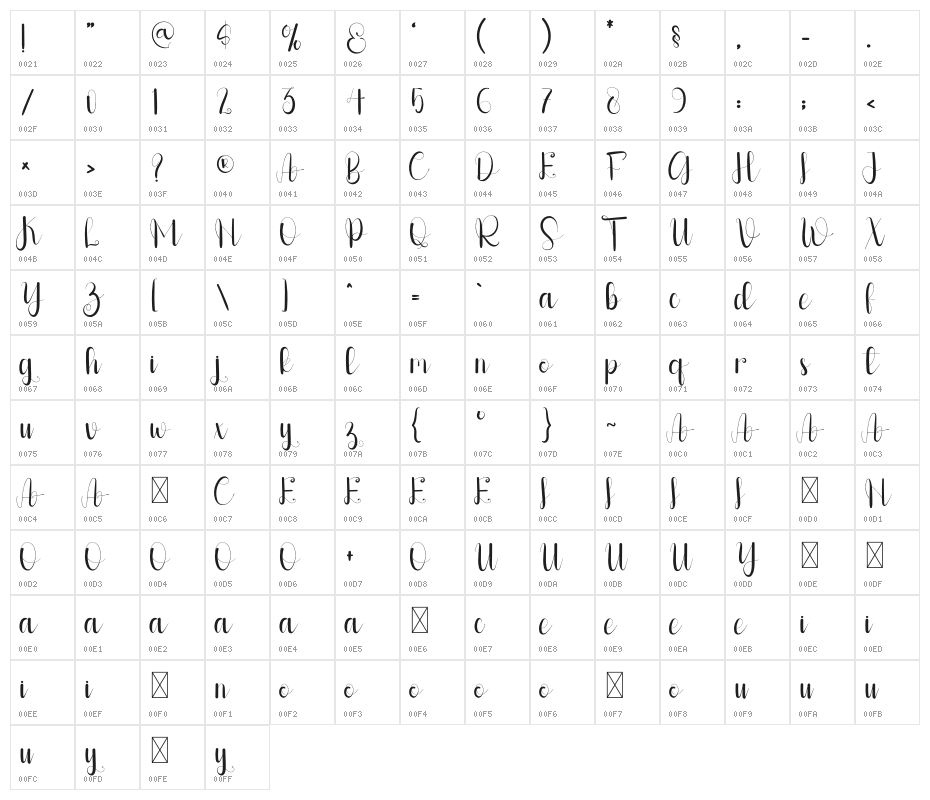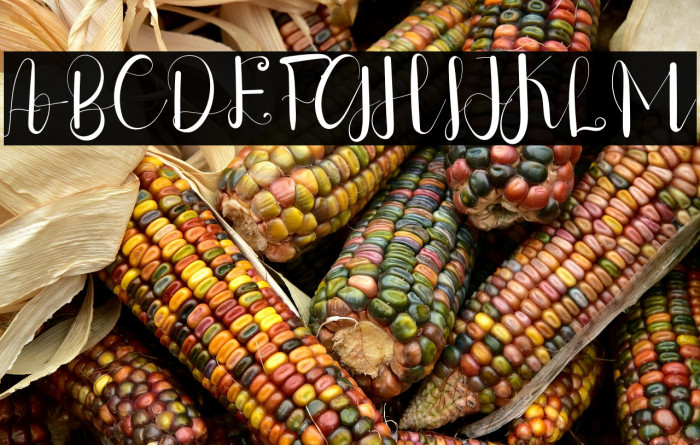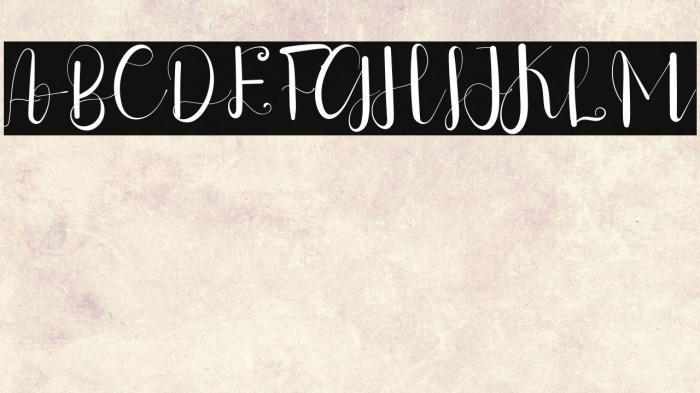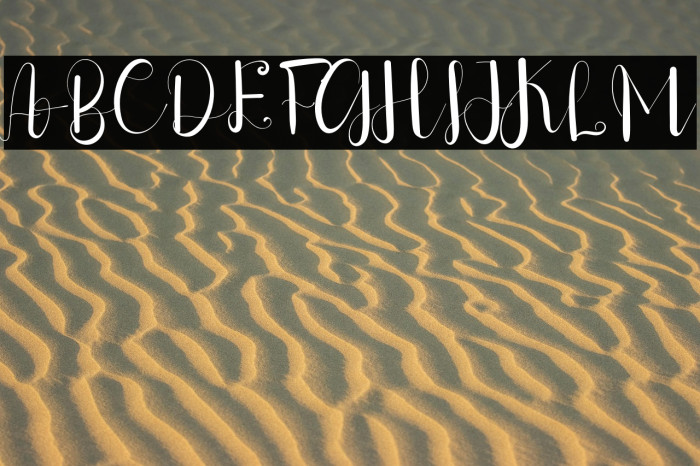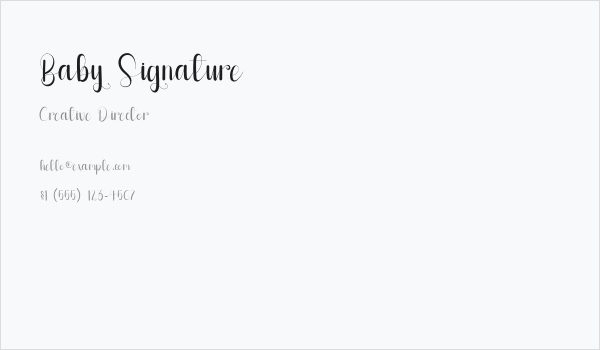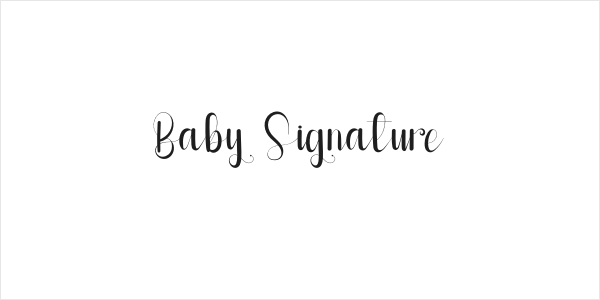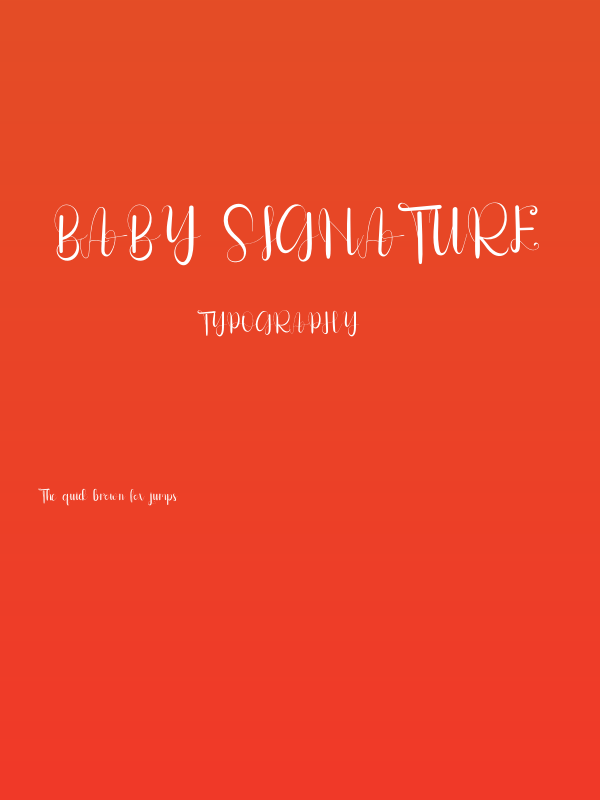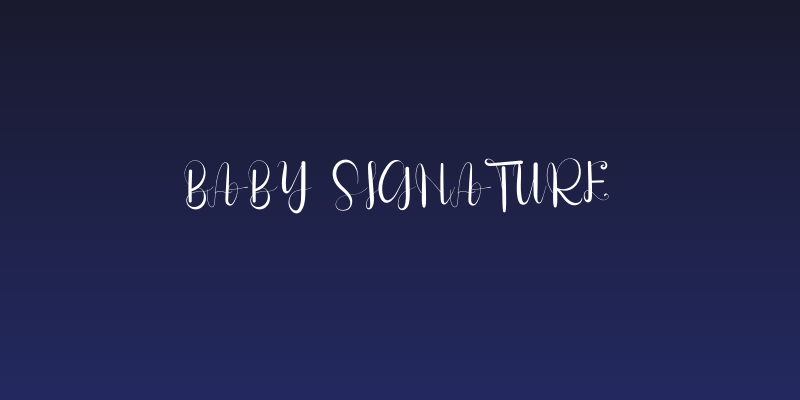
Baby Signature Font
Baby Signature Description
This elegant script font features a flowing, cursive style with intricate loops and swirls that give it a sophisticated and artistic appearance. The uppercase letters are particularly ornate, with extended flourishes that add a touch of drama and flair. The lowercase letters maintain a consistent flow, enhancing readability while still retaining the decorative elements. Numbers and special characters are designed with the same attention to detail, ensuring a cohesive look across all text. The font's overall aesthetic is both modern and timeless, making it suitable for a variety of design applications.
| Use Case | Logos, Invitations, Artistic designs |
| Proposed Projects | Ideal for wedding invitations, greeting cards, branding, and logo design where a touch of elegance is desired. |